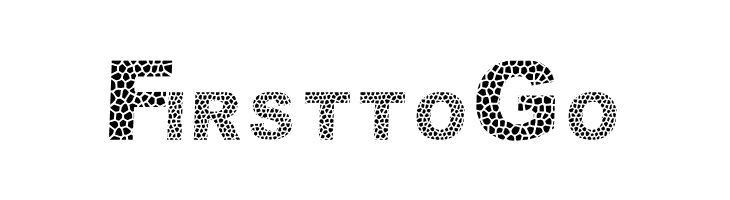
someday-Bold Font
- Font: someday-Bold
( Fonts by Dieter Schumacher )
A bold, decorative font with a mosaic-like pattern, ideal for striking visual designs.